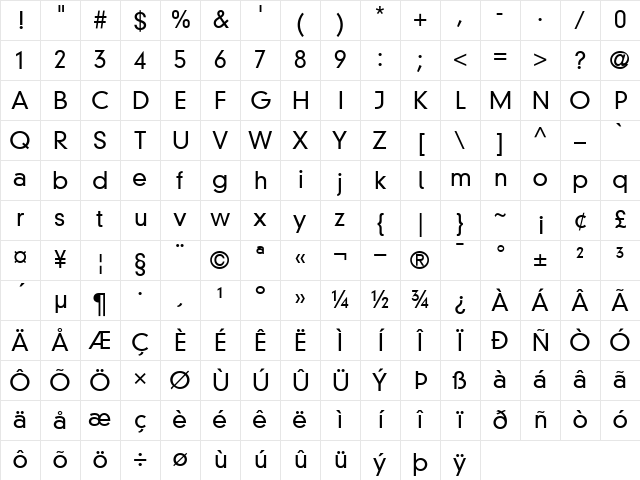
DIN30640NeuzeitGrotesk-Light Light
Design Context for DIN30640NeuzeitGrotesk-Light
DIN30640NeuzeitGrotesk-Light takes a clean, functional approach - its unadorned letterforms prioritise legibility and work reliably across screen and print environments. Its slender proportions lend an understated elegance to any composition.
Font Pairing: Pair DIN30640NeuzeitGrotesk-Light with a medium or bold serif for headlines - the weight contrast creates an elegant, high-end feel.
Pro Tip: Use DIN30640NeuzeitGrotesk-Light with generous tracking and line-height for the most luxurious effect - light sans-serifs reward spacious, considered layouts.